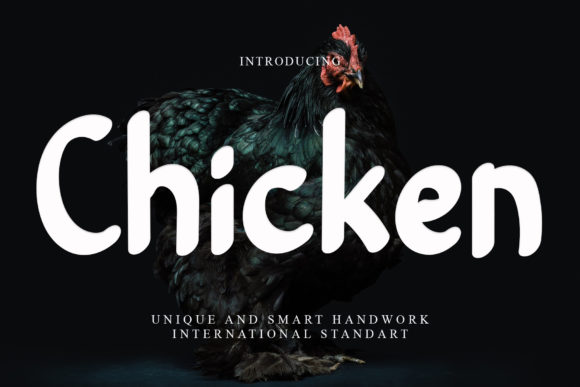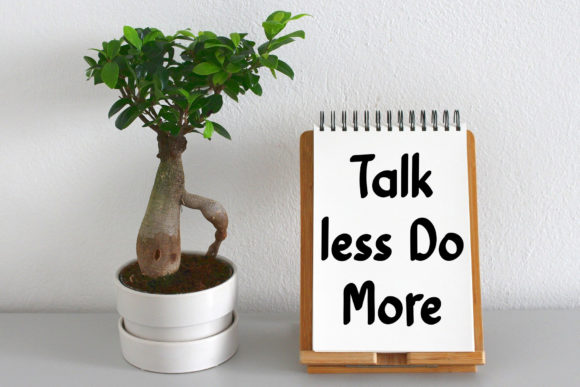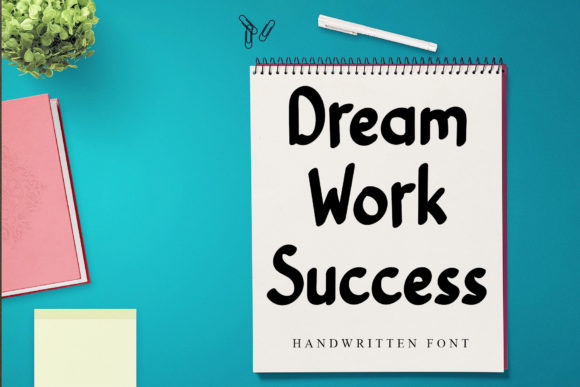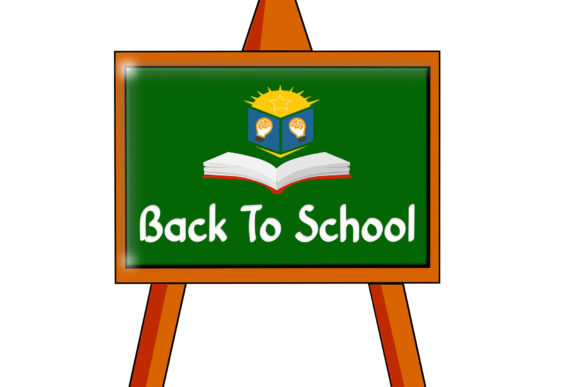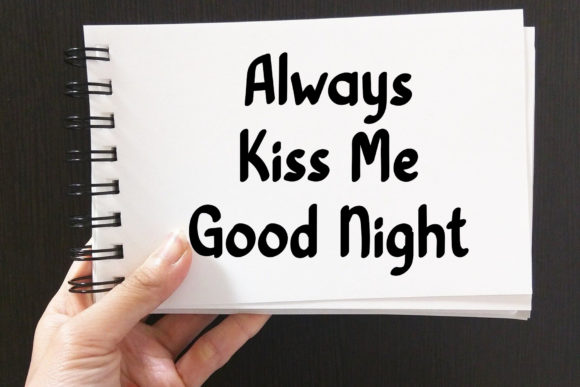
Chicken Font
About Chicken Font
Chicken is a relaxed, thick lettered and friendly handwritten font. Whether you use it for cartoon related designs, children games or just any creation that requires a lovely touch, this font will be an amazing choice.